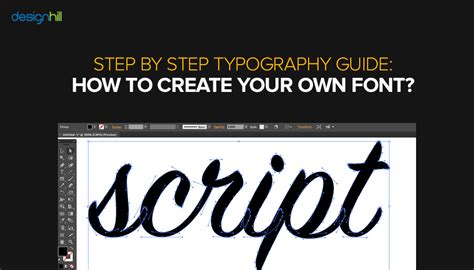
Create Your Own Retro Font: A Step-by-Step Guide
Hey design enthusiasts! Ever scrolled through Pinterest or Instagram and spotted those awesome retro fonts that just scream vintage vibes? You know, the ones that make your designs pop with a cool, nostalgic feel? Well, guess what? You don’t have to be a design wizard to craft your own unique retro font. Today, we’re diving deep into the magical world of typography and showing you exactly how to make retro font styles that will have everyone asking, “Where did you get that font?!” It’s not as complicated as you might think, guys. We’ll break it down into super manageable steps, covering everything from conceptualizing your groovy idea to bringing it to life digitally. So, grab your favorite beverage, settle in, and let’s get ready to infuse some serious throwback charm into your projects. Whether you’re a seasoned designer looking to add a new skill to your arsenal or a total newbie curious about the process, this guide is for you. We’re talking about fonts that evoke the spirit of the 50s diner signs, the psychedelic posters of the 60s and 70s, or even the bold, blocky styles of the 80s. The key is understanding what makes a font feel retro . It’s all about those curves, those flares, those unique serifs, and sometimes, even a bit of intentional imperfection. We’ll explore different eras and their signature typographic styles, giving you the inspiration you need to get started. So, are you ready to travel back in time with your own custom typography? Let’s do this!
Understanding the Essence of Retro Typography
Alright guys, before we even think about picking up a digital pen, we need to get our heads around what actually makes a font feel retro. It’s not just about slapping on some old-timey colors; the retro font design itself carries the weight of the era. Think about it: each decade had its own visual language, and typography was a huge part of that. For instance, the 1950s brought us those smooth, often rounded, and friendly script fonts reminiscent of diner menus and classic Hollywood posters. They exuded optimism and a certain polished, yet approachable, aesthetic. Then you hop to the 1960s and the 1970s , and things get a whole lot funkier and more experimental. We see groovy, psychedelic scripts with wafting, organic shapes, and bold, geometric sans-serifs that feel futuristic for their time. Think album covers and protest posters. The 1980s often leaned into blocky, pixelated, or highly stylized geometric forms, reflecting the rise of digital technology and a bolder, more energetic aesthetic, seen in arcade games and early computer graphics. So, when you’re aiming to make retro font styles, the first step is research . Dive into historical design archives, browse vintage advertisements, and study the lettering on old movie posters and record sleeves. What are the common characteristics? Are there specific flourishes, ligatures, or baseline shifts that define the look? Pay attention to the stroke weight variations, the presence or absence of serifs, and the overall mood – is it playful, sophisticated, rebellious, or futuristic? Understanding these nuances will give your retro font authenticity. For example, a true 50s script might have a gentle bounce and elegant loops, while a 70s psychedelic font might feature exaggerated curves and heavy, rounded terminals. Don’t just copy; absorb the spirit. Think about the materials they were likely created with – hand-painted signs, letterpress printing, early digital displays – and how that influenced the final letterforms. This deep dive into the visual history is crucial for creating a retro font that feels genuinely inspired, not just a cheap imitation. It’s about capturing that specific zeitgeist through carefully crafted letter shapes. So, grab some inspiration images, start a mood board, and let the past guide your creative journey. This foundational understanding is your secret weapon to making truly convincing retro typography.
Conceptualizing Your Retro Font Idea
Now that we’ve got a handle on what makes typography feel retro, it’s time to get those creative juices flowing and brainstorm your unique retro font idea! This is where the magic really starts to happen, guys. You don’t just want to recreate an existing font; you want to create something that feels authentic and yours , infused with the spirit of a bygone era. So, how do you nail down that concept? First off, decide on your era . Are you aiming for the sleek curves of the mid-century modern era, the wild energy of the disco days, or the sharp, geometric look of the 80s? Your chosen era will heavily influence the style, mood, and characteristics of your font. Next, identify the purpose of your font. Is it for a vintage-style logo, a retro-themed party invitation, a website that needs a throwback feel, or maybe just for personal creative projects? Knowing its intended use will help you decide on factors like readability, complexity, and the overall vibe. For example, a font meant for a logo might need to be bold and distinctive, while one for body text would prioritize legibility. Now, let’s talk inspiration . This is where your mood board comes in handy! Look at those vintage signs, album covers, and advertisements you gathered. What specific letterforms catch your eye? Are there particular serifs, swashes, or stylistic alternates that you find particularly appealing? Don’t be afraid to mix and match elements from different sources, but always keep your chosen era in mind to maintain consistency. Think about the personality you want your font to convey. Do you want it to feel playful and whimsical, sophisticated and elegant, or bold and rebellious? This personality should shine through in every curve and line. For example, a playful 50s script might have exaggerated ascenders and descenders with a bouncy baseline, while a sophisticated 70s serif could feature sharp, angular strokes and unique ligatures. You can even sketch out key letters first – your uppercase A, B, C, and maybe a lowercase a, b, c, and some numbers. Seeing how these basic forms come together can help you define the overall rhythm and style of your font. Remember, the goal is to make retro font styles that are not just visually appealing but also evoke a specific feeling or time period. Don’t be afraid to be bold with your ideas! Maybe you want to combine the roundness of 50s lettering with the sharp edges of 80s digital fonts. As long as it serves your concept and feels cohesive, experimentation is key. This conceptualization phase is your playground; have fun with it and let your imagination run wild. The more defined your concept, the easier the actual design process will be.
Sketching Your Retro Letterforms
Alright, fam, we’ve brainstormed our awesome retro concept, and now it’s time to get our hands dirty – metaphorically speaking, of course! We’re moving from the abstract idea to the tangible form by sketching your retro letterforms . This is arguably the most crucial step in learning how to make retro font styles because it’s where the soul of your font truly takes shape. Don’t worry if you’re not a seasoned illustrator; this is about getting your ideas down on paper (or screen!) in a rough but clear way. Grab your trusty sketchbook, a pencil, or even your favorite digital drawing tablet. The key here is to start with the basics . Don’t try to draw a full alphabet right away. Focus on a few key letters that will define the character of your font. Think of letters like ‘A’, ‘E’, ‘O’, ’S’ for uppercase, and ‘a’, ‘e’, ‘o’, ’s’ for lowercase. These often reveal the core structure, stroke contrast, and overall shape that you’ll carry through the rest of your alphabet. When you’re sketching, constantly refer back to your research and mood board. Are you going for thick, rounded serifs like in 50s signage? Or perhaps sharp, angular terminals like in some 70s disco fonts? Experiment with different weights and styles . Try sketching a letter ‘O’ that’s perfectly circular, then one that’s slightly oval, and another with a very thick outline. See which one best captures the essence of your chosen era and personality. Pay attention to the details . This is where the retro magic happens! Are there unique curves, unusual ligatures (where two letters combine into a single glyph), or specific decorative elements you want to incorporate? Maybe a swashy tail on your ‘R’ or a distinctive crossbar on your ‘A’. Don’t be afraid to draw multiple versions of the same letter. Sometimes the tenth sketch is the one that nails it! Consider the rhythm and flow . How do the letters feel when placed next to each other? Try sketching a common word or phrase using your drafted letters to see how they interact. This will help you identify any inconsistencies in size, spacing, or style that you might have missed when drawing letters in isolation. If you’re aiming for a script font, focus on how the connections between letters look – are they smooth and flowing, or more abrupt and stylized? For blocky, geometric fonts, ensure your angles are consistent and your lines are clean. This sketching phase is about exploration and refinement. It’s okay for your sketches to be messy; the goal is to capture ideas, not create polished artwork. Think of these sketches as the blueprints for your digital font. The more thought and effort you put into this stage, the stronger your final digital font will be. So, go wild, embrace the imperfections, and let your pencil (or stylus) dance with the spirit of the past!
Digitizing Your Letterforms: From Sketch to Vector
Alright design squad, you’ve got your killer sketches, brimming with retro goodness! Now it’s time to bring those awesome designs into the digital realm and learn how to make retro font that’s actually usable. This is where your sketches transform from raw ideas into clean, scalable vector shapes. The go-to tool for this is vector graphics software , like Adobe Illustrator, Affinity Designer, or even free options like Inkscape. Why vectors, you ask? Because they’re resolution-independent, meaning you can scale your font to any size without losing quality – crucial for professional use! Your first task is to import your sketches into your chosen software. You can scan your drawings or take clear, well-lit photos and place them as a background layer. Next, you’ll use the software’s pen tool (or equivalent) to trace over your sketches. This is where precision and patience really pay off, guys. You’re essentially redrawing each letterform with smooth, clean vector paths. Don’t just trace blindly; refine the curves and lines based on your sketches and your overall concept. Focus on consistency . Ensure that the stroke weight, serif style, curve tension, and overall character are maintained across all letters. This is especially important for retro fonts , where subtle details can make or break the vintage feel. For example, if you decided on a specific type of curve for your ’S’, make sure all similar curves in other letters follow suit. Create your anchor points carefully . These are the points that define your vector paths. Too many anchor points can make your paths look messy and difficult to edit, while too few might result in jagged or inaccurate curves. Aim for smooth, flowing lines that accurately represent your sketched letterforms. As you digitize each letter, take breaks and look at them in context. Try setting them next to each other to check their visual weight and alignment. You might need to adjust individual letters to ensure they harmonize with the others. Save your work frequently! Trust me on this one. Once you have a basic set of digitized letters (e.g., A-Z, a-z, 0-9), you can start building out the rest of your character set, including punctuation and symbols, always referring back to your original concept and sketches for guidance. This digital conversion process requires a keen eye for detail and a steady hand, but the result is a professional-quality font that you’ve created from scratch. It’s incredibly satisfying to see your hand-drawn vision meticulously recreated as clean, digital artwork, ready to be transformed into a fully functional font file!
Refining and Perfecting Your Font
So, you’ve diligently digitized all your letterforms, and you’ve got a lovely set of vector shapes representing your retro font ! Awesome work, guys! But hold up – we’re not quite done yet. This next phase is all about refining and perfecting your font to make it look polished, professional, and truly capture that vintage essence. This is where we polish the rough edges and ensure everything sings in harmony. First things first, check your kerning and spacing . Kerning is the adjustment of space between specific pairs of letters (like ‘AV’ or ‘To’) to create a visually pleasing and uniform appearance. Poor kerning can make even the most beautifully designed letters look awkward and amateurish. Most font creation software will have tools to help you with this, or you can manually adjust the spacing between letters in your design software. Test it out in real-world scenarios . Type out various words and phrases, paying close attention to how the letters interact. Does the spacing feel right? Are there any awkward overlaps or excessive gaps? You might need to go back and tweak individual letterforms or adjust the spacing globally. Next, consider your font’s weight and contrast . Is the difference between thick and thin strokes consistent with your retro inspiration? Are the serifs sharp enough, or perhaps too chunky? This is the time to make those fine-tuning adjustments to ensure visual coherence. Add stylistic alternates and ligatures . This is where you can really elevate your retro font and give it that extra flair! Stylistic alternates are different versions of a letter (e.g., a more decorative ‘a’ or ‘R’) that you can swap in for variety. Ligatures are special combinations of characters, like ‘fi’ or ‘fl’, where the letters merge into a single, more aesthetically pleasing glyph. These details can significantly enhance the retro feel and make your font feel more authentic and unique. For example, a 70s-inspired font might have elaborate ligatures that connect letters in flowing, organic ways. Ensure readability . While retro fonts often have distinctive styles, they still need to be legible, especially if they’re intended for use in longer texts. Review your letters for clarity. Are the ascenders and descenders distinct? Is the x-height appropriate? Make sure that the key features that define your retro style don’t hinder readability. Get feedback! Share your work-in-progress with other designers or friends whose opinions you trust. A fresh pair of eyes can often spot issues you’ve overlooked. Ask them specifically about the retro feel, the readability, and the overall impression. Incorporating constructive criticism is a vital part of the design process. This refinement stage is iterative. You’ll likely go back and forth between sketching, digitizing, and adjusting multiple times. Embrace this process! The goal is to polish your creation until it shines, ensuring that every curve, every serif, and every bit of spacing contributes to a cohesive and compelling retro font . It’s the dedication to these finer details that truly transforms a good design into a great one.
Turning Your Designs into a Font File
Alright, you’ve poured your heart and soul into sketching, digitizing, and perfecting those gorgeous retro letterforms. You’ve got a beautifully designed set of characters, but they’re still just flat images. Now, the exciting part: learning how to make retro font that’s actually a font file – something you can install and use in any program! This is where your vector artwork gets packaged into a usable format. For this, you’ll need specialized font creation software . Popular choices include FontLab, Glyphs, FontForge (which is free and open-source, a great starting point for beginners, guys!), and RoboFont. Each of these tools allows you to import your vector glyphs and assemble them into a functional font. The process generally involves importing each of your vector letterforms (saved as SVG or EPS files, typically) into the glyph editor of your chosen font software. You’ll then assign each vector to its corresponding character slot (e.g., your ‘A’ vector goes into the ‘A’ slot, your ‘!’ vector into the exclamation mark slot, and so on). This is where you’ll also define important font metrics. Set the baseline, ascender, and descender lines . These lines dictate where characters sit on the text line and how tall or short they extend, ensuring consistent vertical alignment. You’ll also refine global spacing and kerning pairs within the font editor itself, which is often more powerful than doing it solely in your vector software. This ensures that your meticulously adjusted letter spacing looks correct no matter what program you’re using the font in. Once all your characters are imported, assigned, and metrics are set, you’ll then generate or export your font file . Most font editors will allow you to export in common formats like TrueType (.ttf) and OpenType (.otf). OpenType is generally preferred as it supports more advanced features like ligatures and stylistic alternates, which are perfect for adding that extra layer of retro charm to your design. You’ll also be prompted to add font metadata , such as the font name, designer’s name, version number, and copyright information. Fill this out accurately – it’s good practice and helps identify your creation. Before you finalize, it’s a good idea to test your font thoroughly . Install it on your system and try typing out sample text in various applications (word processors, design software, etc.). Check for any rendering issues, incorrect spacing, or missing characters. Sometimes, exporting and installing can reveal subtle problems that weren’t apparent during the creation process. If you find any bugs, hop back into your font editor, make the necessary corrections, and re-export. This iterative testing and refinement are key to producing a high-quality, reliable retro font . Turning your digital artwork into a working font file is a technical but incredibly rewarding step. It’s the final leap from a cool design concept to a tool you can actually use and share with the world, truly bringing your retro vision to life!
Conclusion: Embrace Your Inner Typographer!
And there you have it, guys! You’ve journeyed through the entire process of learning how to make retro font styles, from digging into the past for inspiration to holding a functional font file in your hands. It’s a process that requires creativity, patience, and a keen eye for detail, but the payoff – having a unique, custom-designed retro font that perfectly matches your vision – is absolutely worth it. Remember, the key is to deeply understand the eras you’re drawing inspiration from, letting that guide your sketching, digitizing, and refining stages. Don’t be afraid to experiment, to push the boundaries a little, and to inject your own personality into your creations. Whether you’re aiming for the smooth curves of the 50s, the groovy vibes of the 70s, or the bold geometry of the 80s, your custom font will carry a unique story. The world of typography is vast and exciting, and creating your own fonts is an incredibly rewarding skill. So, keep practicing, keep experimenting, and most importantly, have fun with it! Now go forth and design some groovy, rad, and totally awesome retro masterpieces! Your next vintage-inspired project is waiting for its perfect, personalized typographic touch. Happy designing!